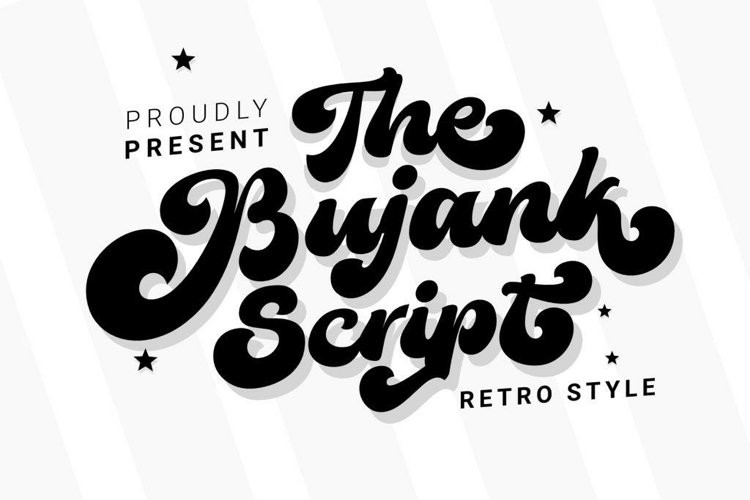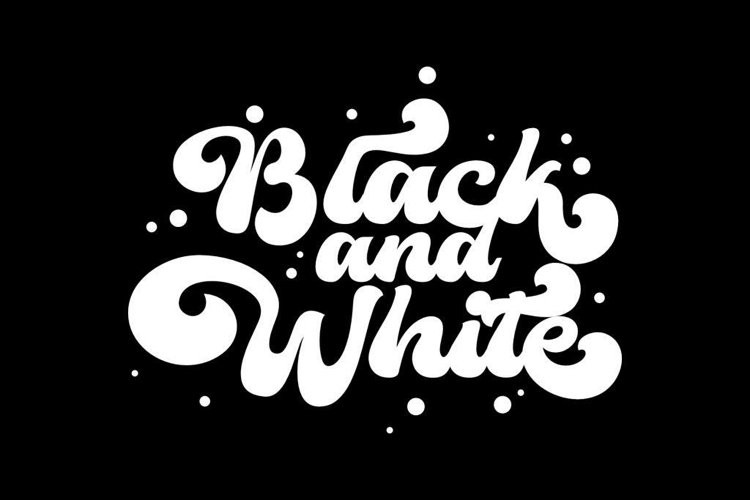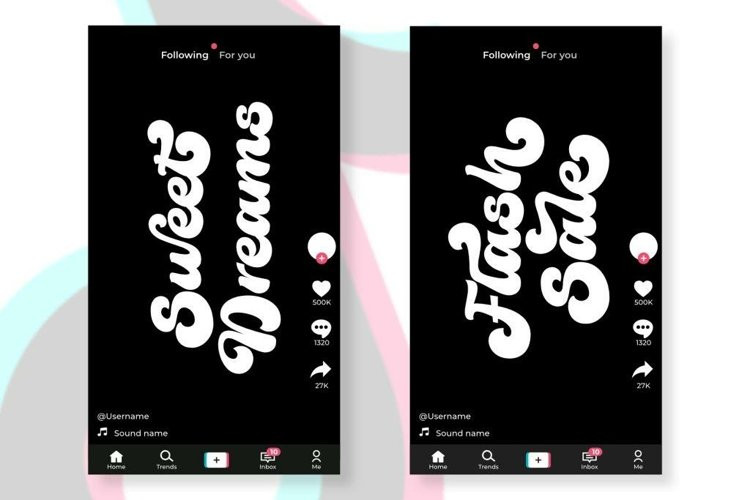
The Bujank Script Font
The Bujank Script FontIntroducing The Bujank Script – Retro Style of the 70s Typeface. Bujank Script comes with open type features like style alternatives, style sets, contextual alternatives & binders. This Retro styled font will help you create stunning designs.
Bujank script is best used for titles, Titles, Logos, quotes, flyers, posters, greeting cards, book covers, Movie titles, printed quotes, product packaging, album covers and design projects you are working on.